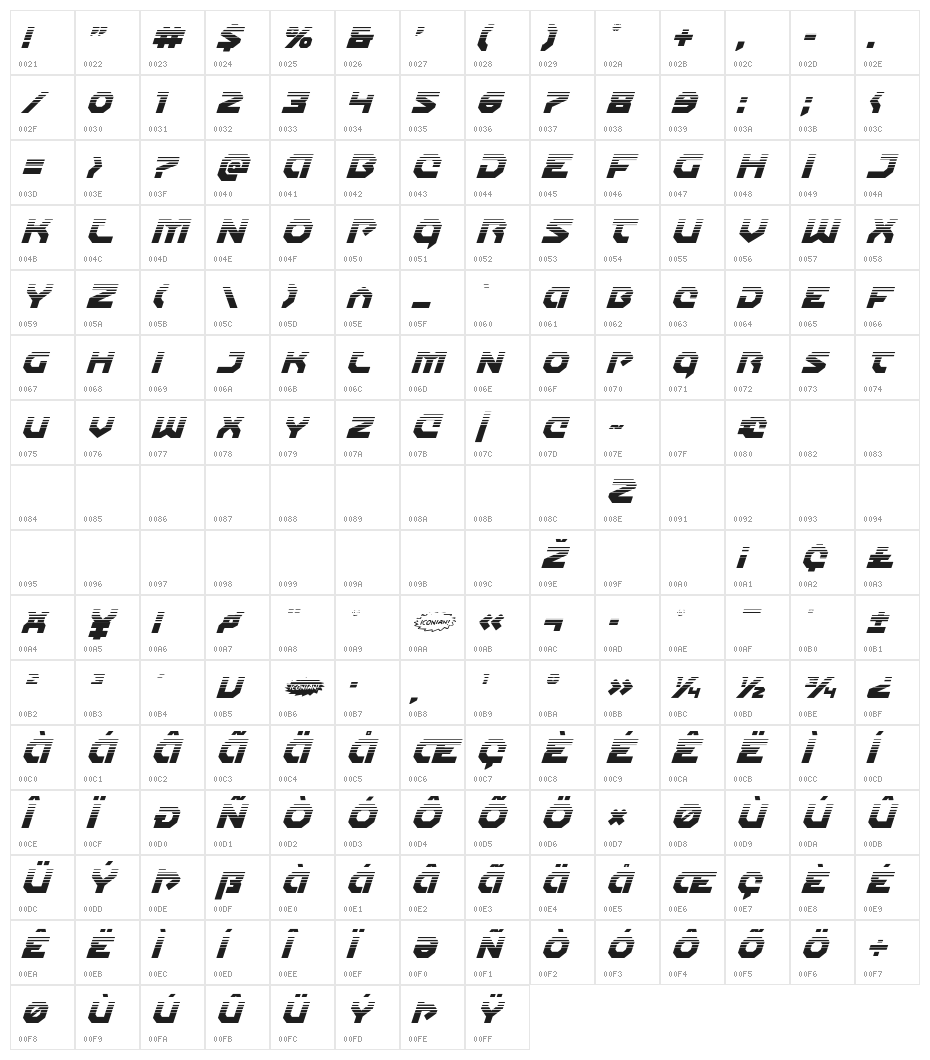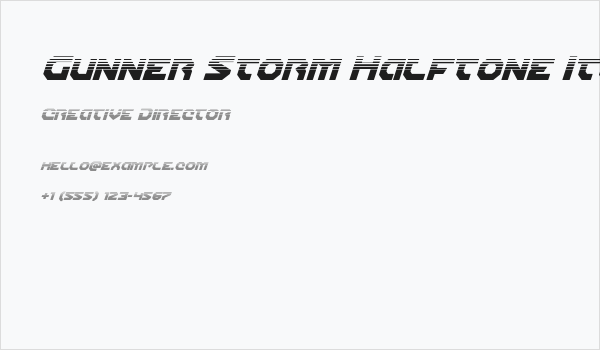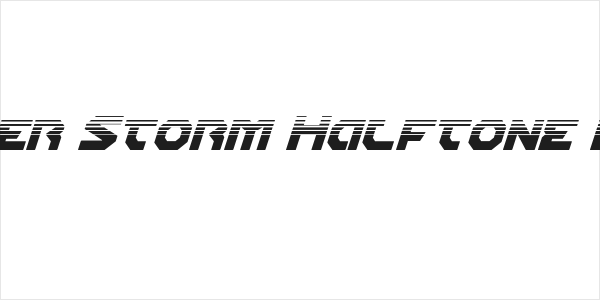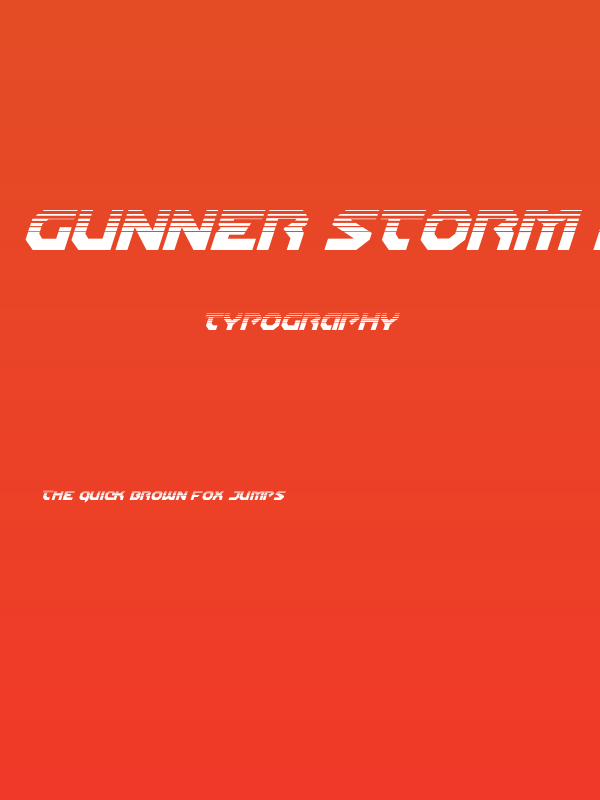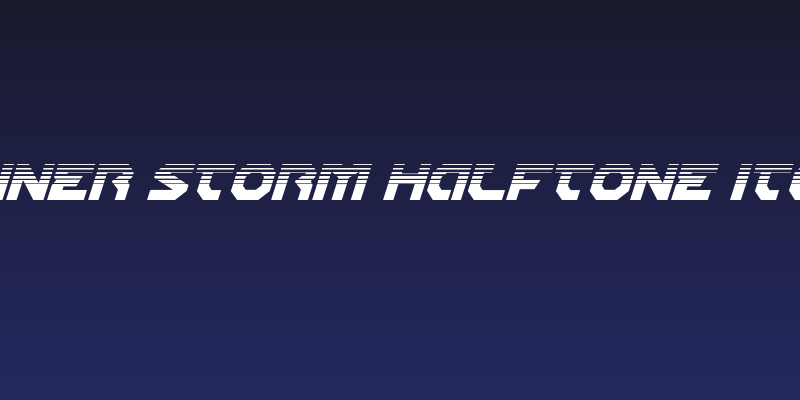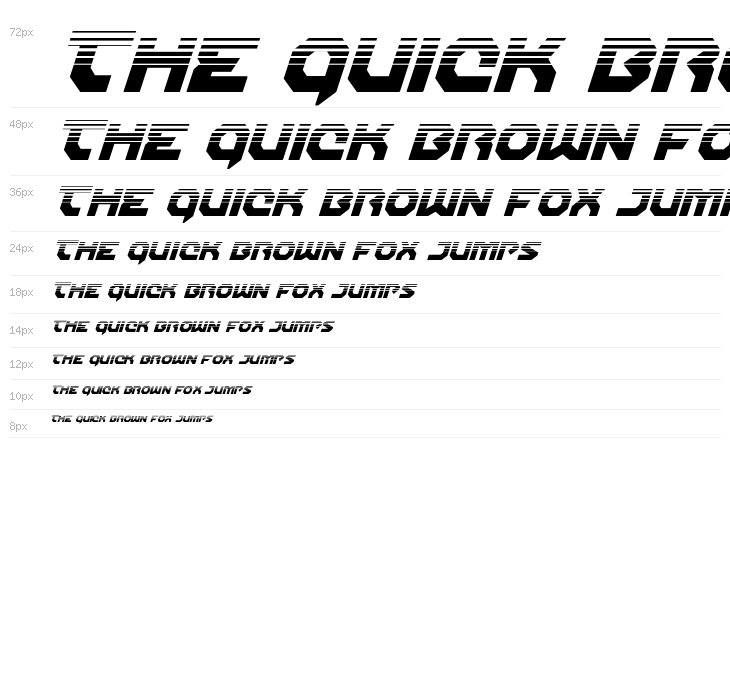
Gunner Storm Halftone Italic Font
Gunner Storm Halftone Italic Description
This font features a bold, italicized style with a distinct halftone effect, giving it a dynamic and futuristic appearance. The characters are constructed with sharp, angular lines and a slanted orientation, enhancing the sense of motion and energy. The halftone pattern adds texture and depth, making it stand out in digital and print media. The uppercase and lowercase letters maintain a consistent style, with numbers and special characters following the same design principles. This font is ideal for projects that require a modern, edgy look.
| Proposed Projects | Ideal for video game titles, tech branding, sports event posters, and sci-fi themed designs. |